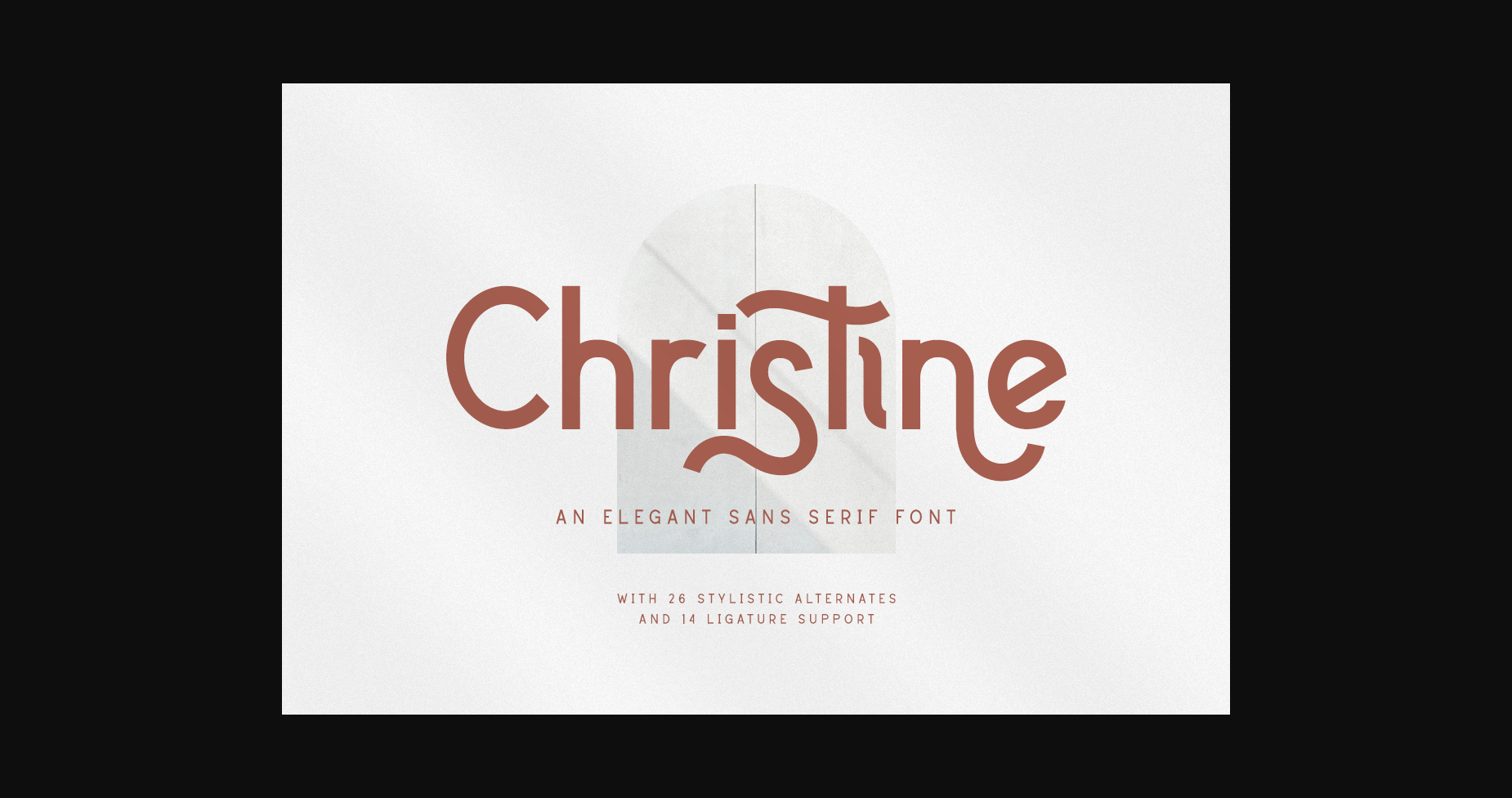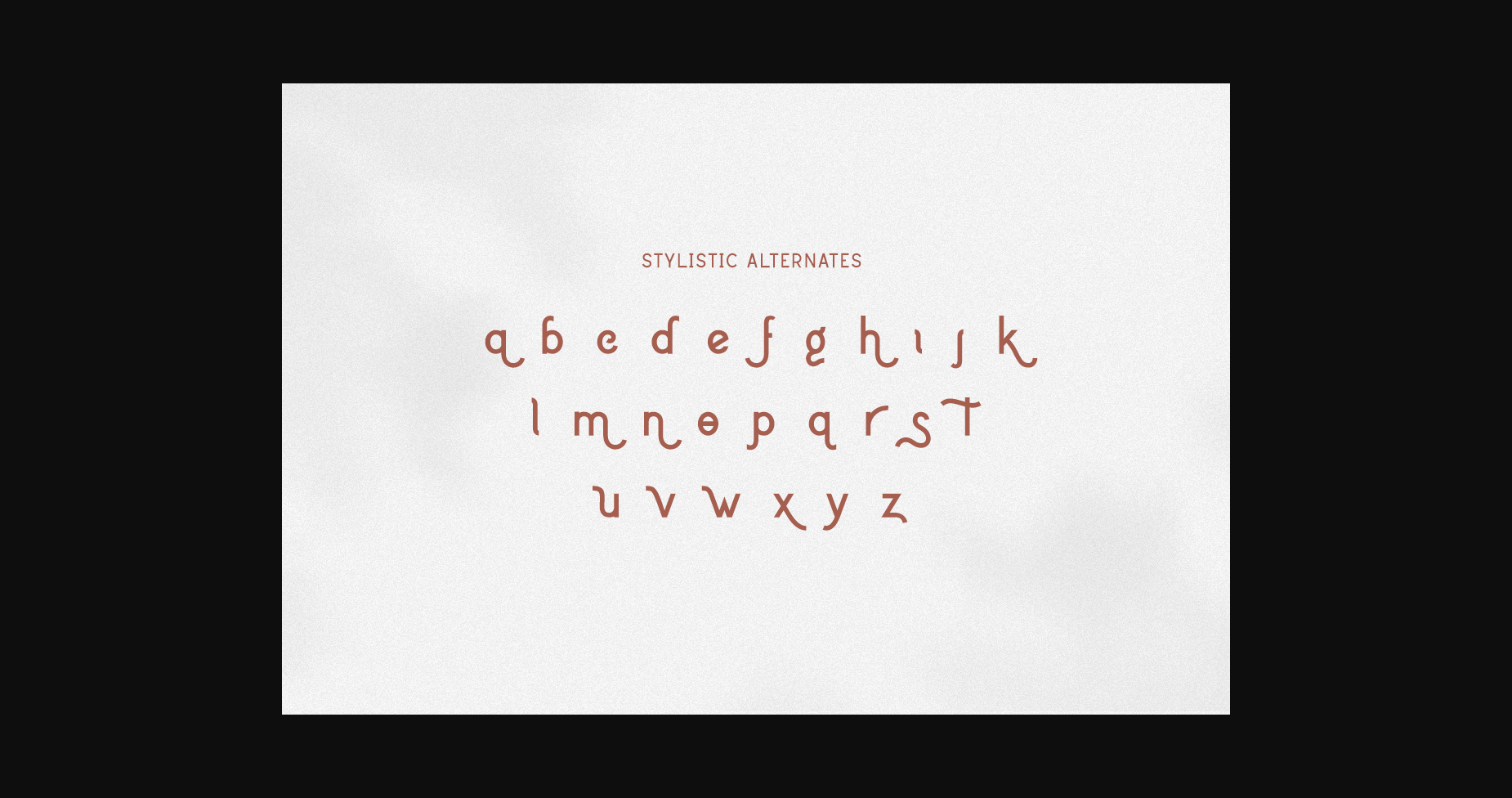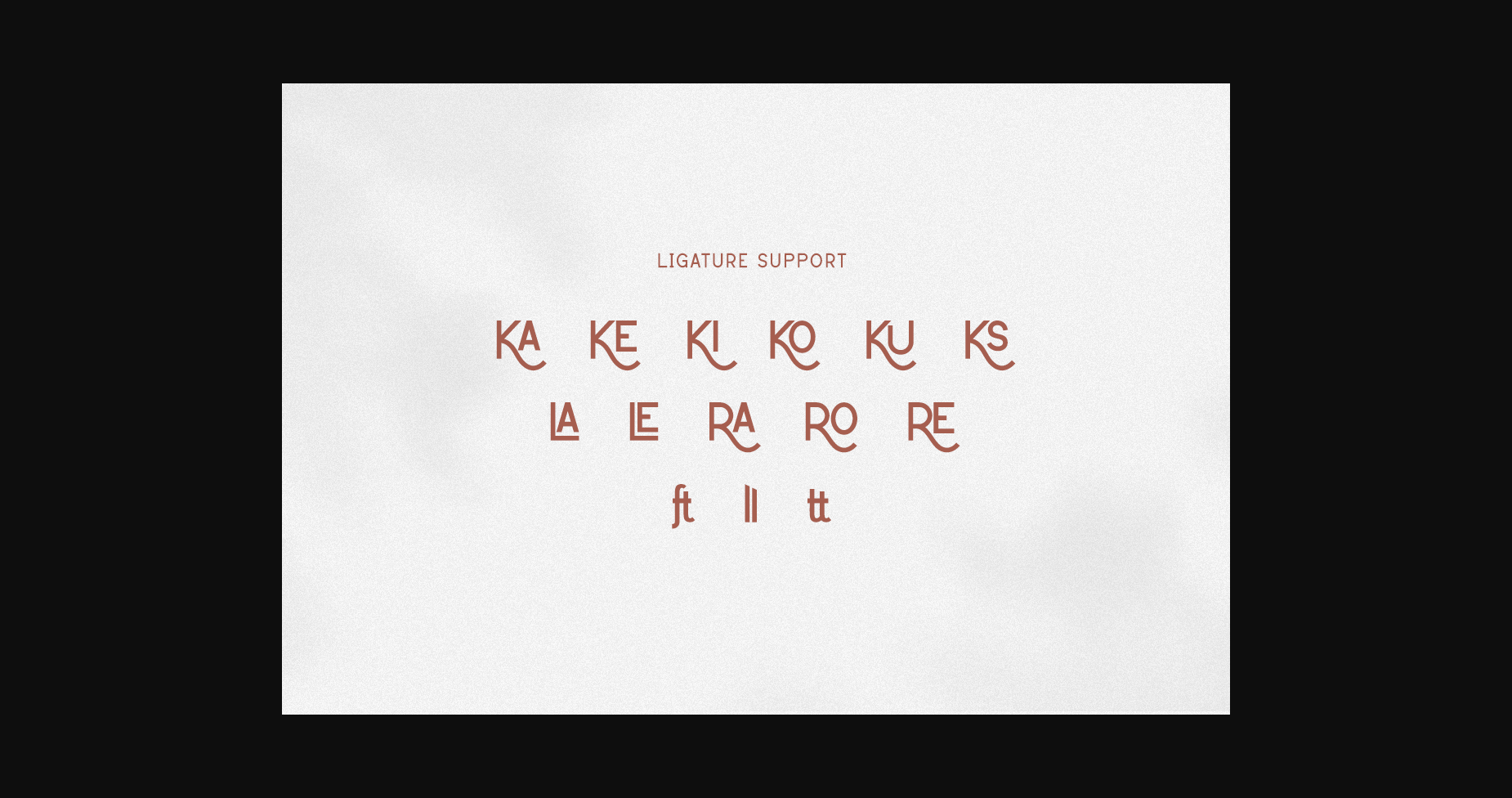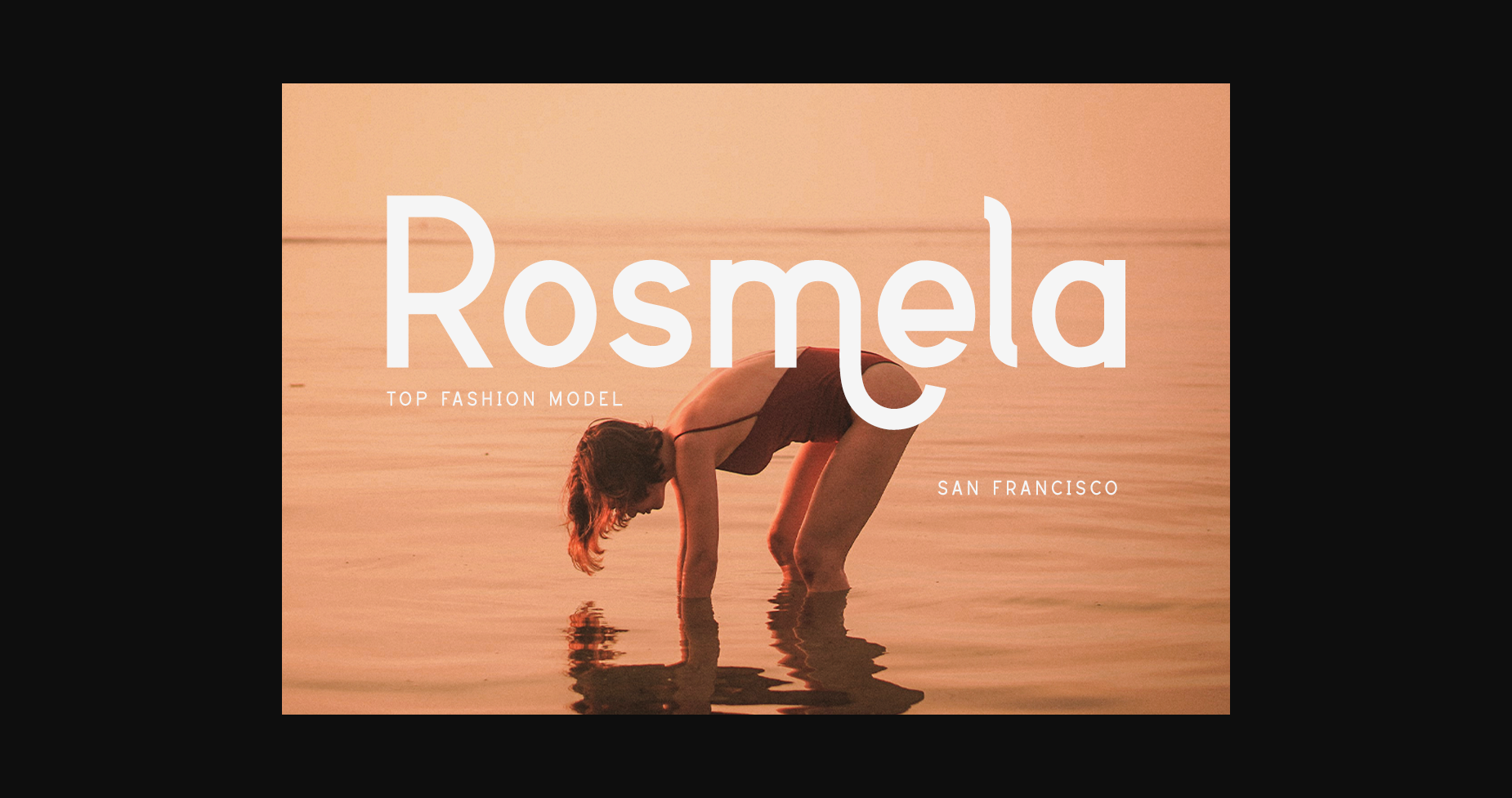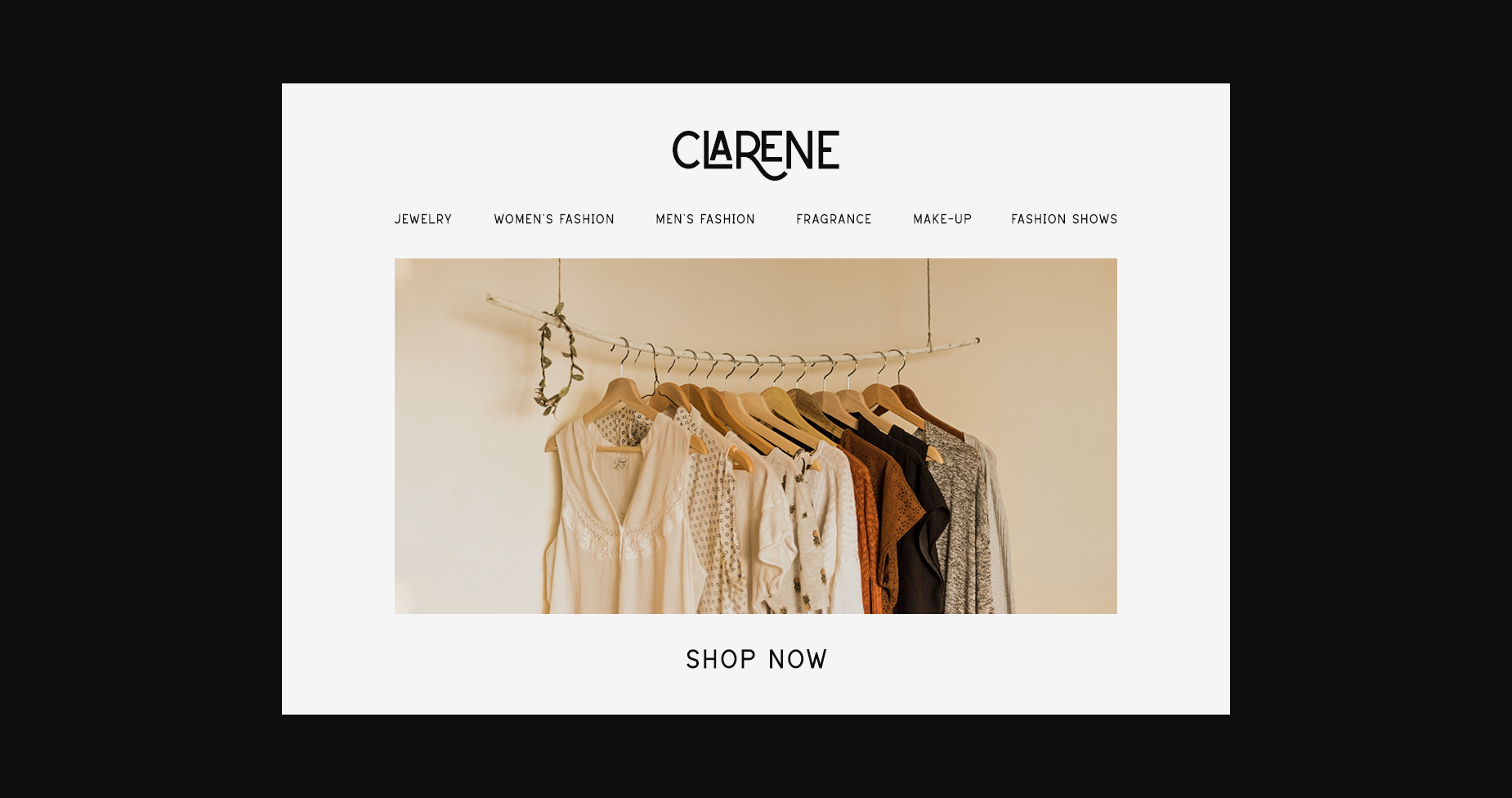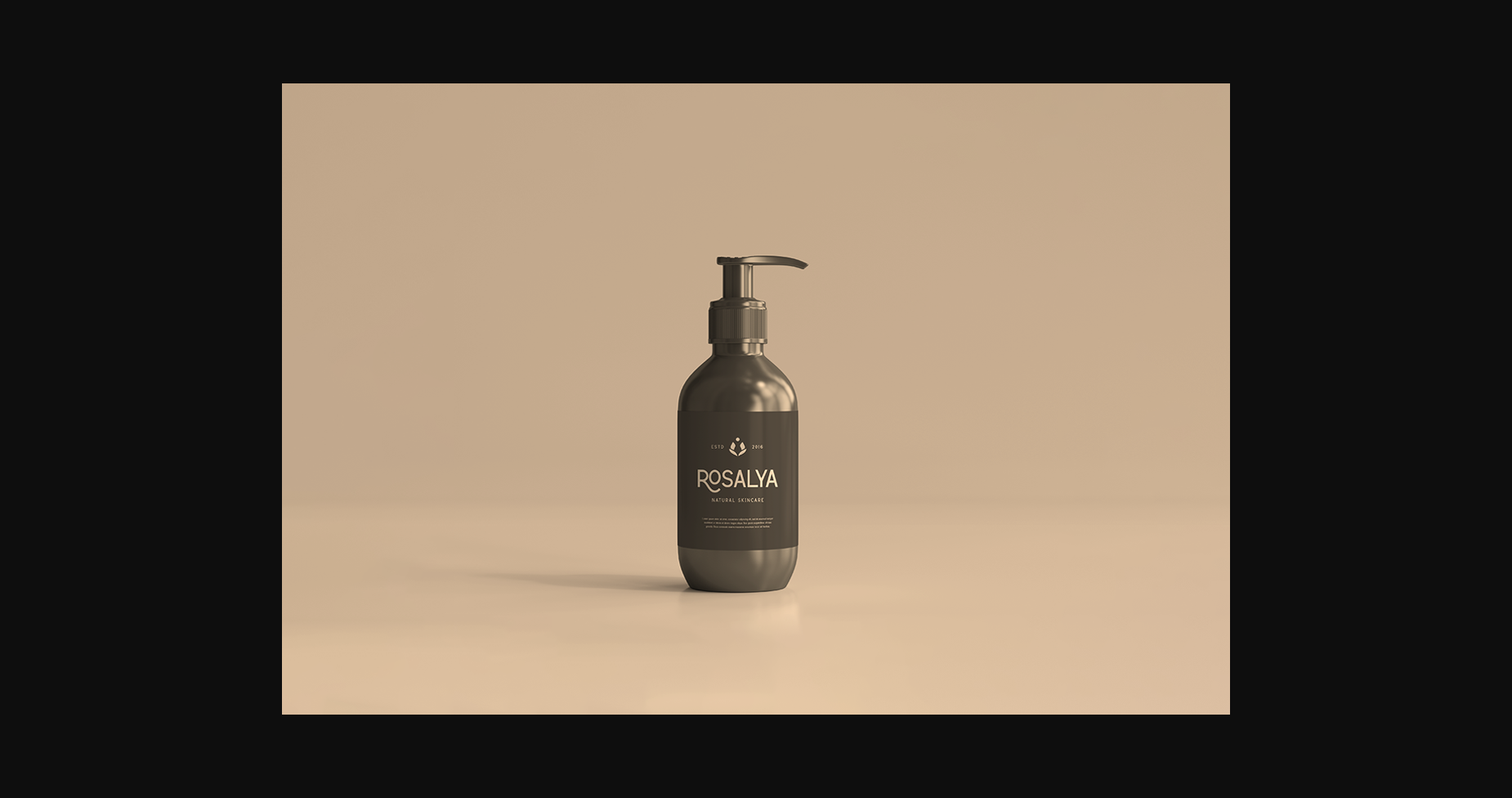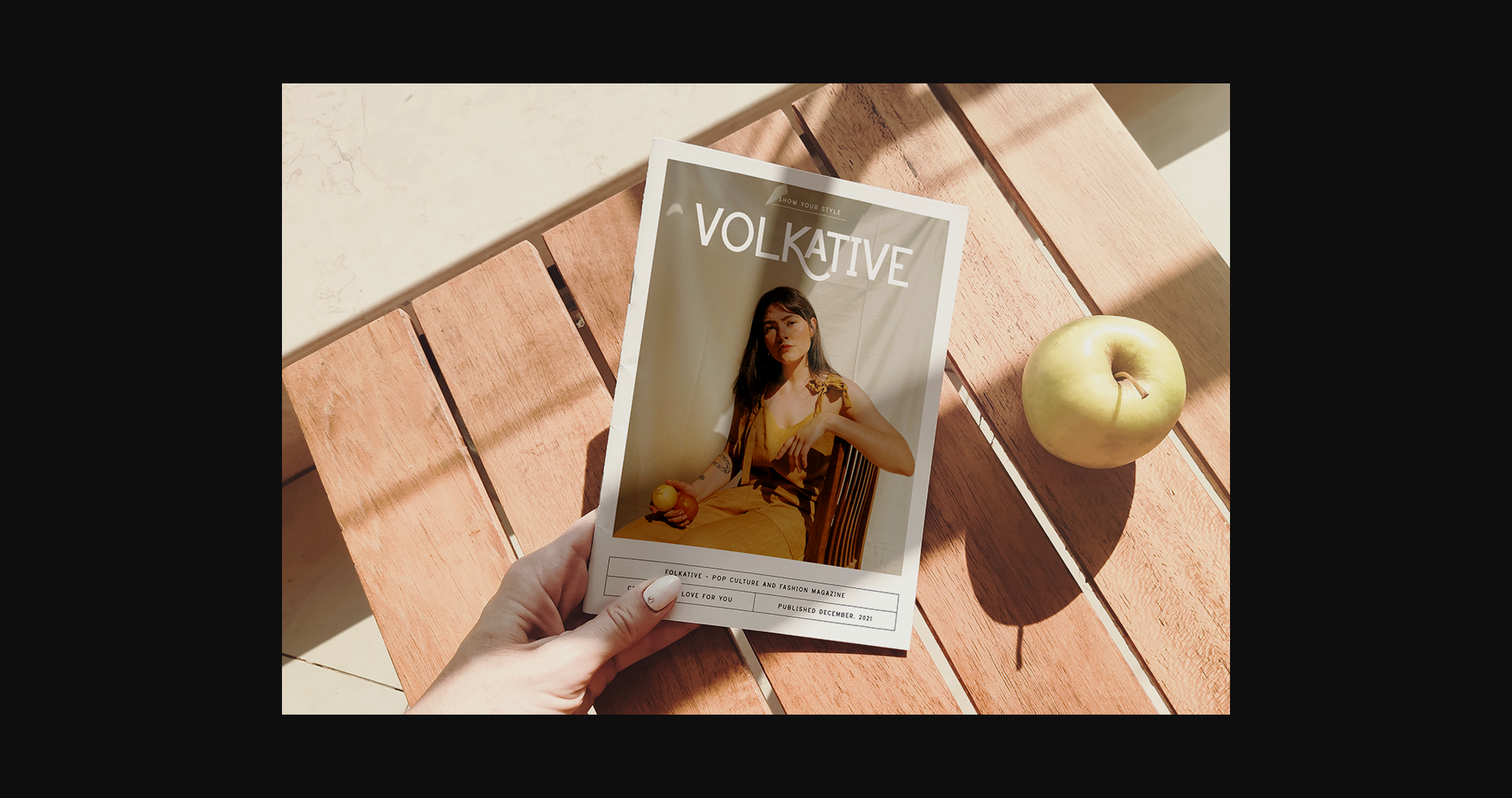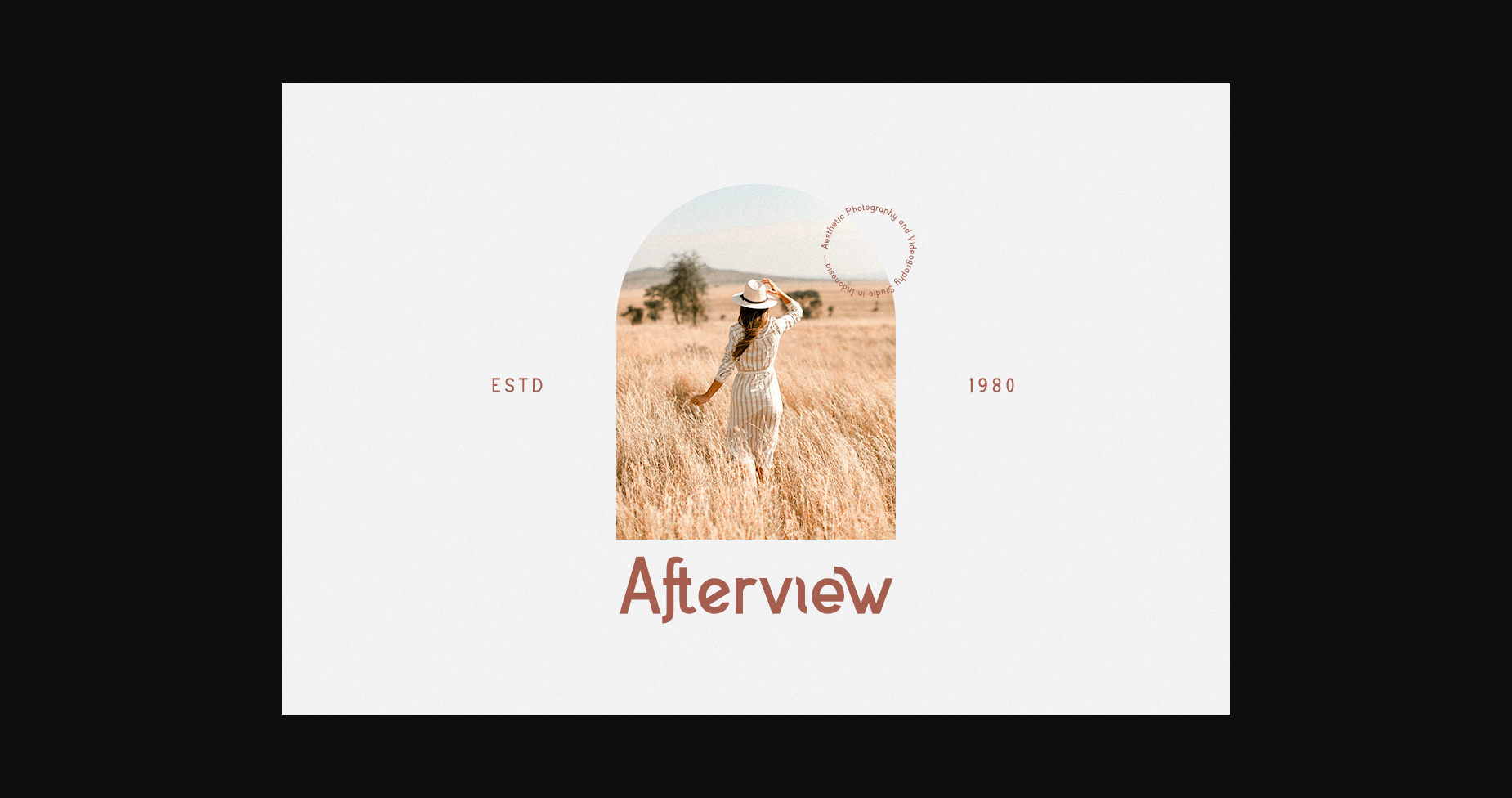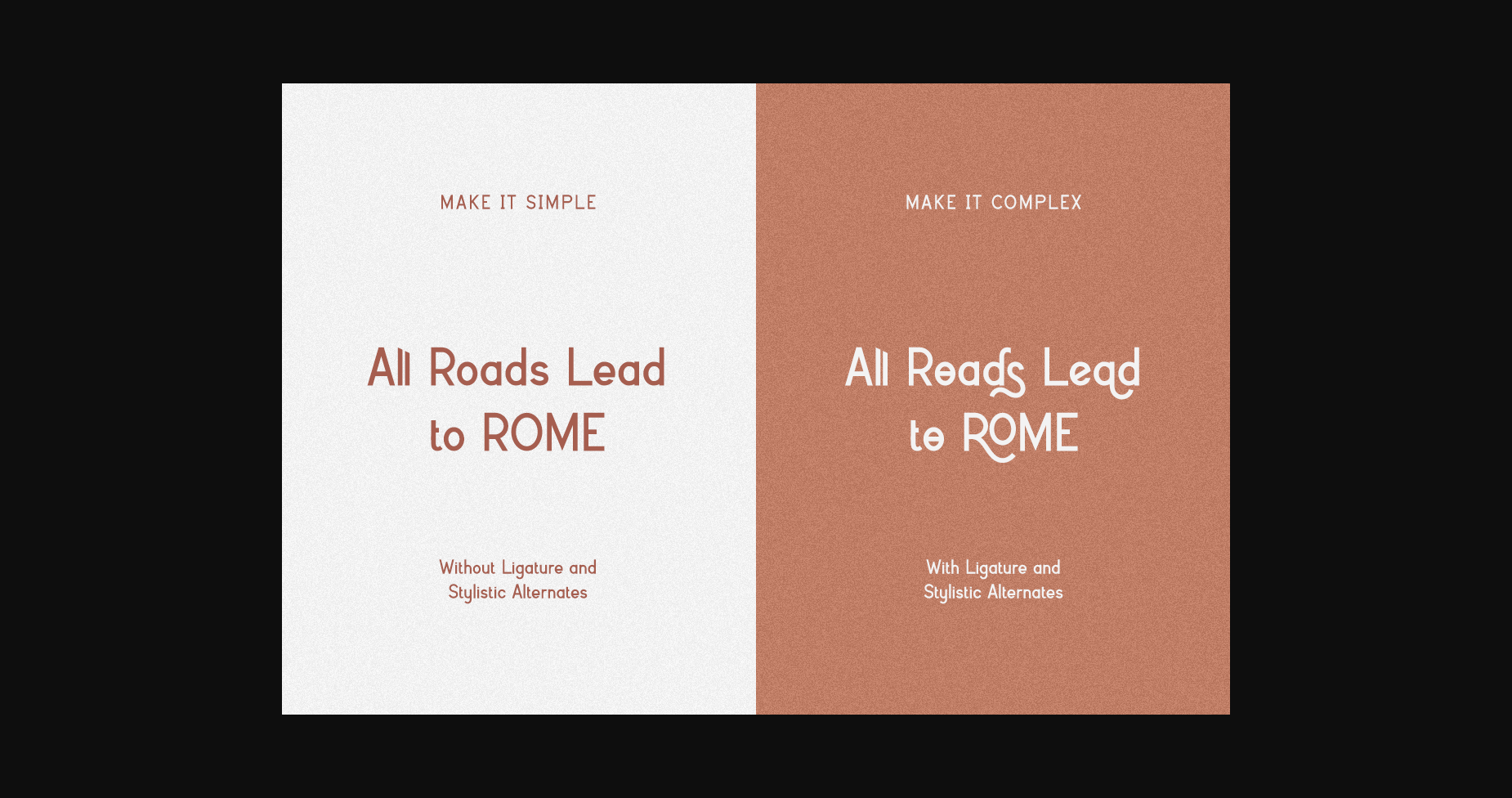
Christine Font
About Christine Font
Christine is an elegant sans serif font. It is PUA encoded which means you can access all of the glyphs and swashes with ease!
Christine will elevate a wide range of crafting ideas, from cards, to branding, labels and much more.